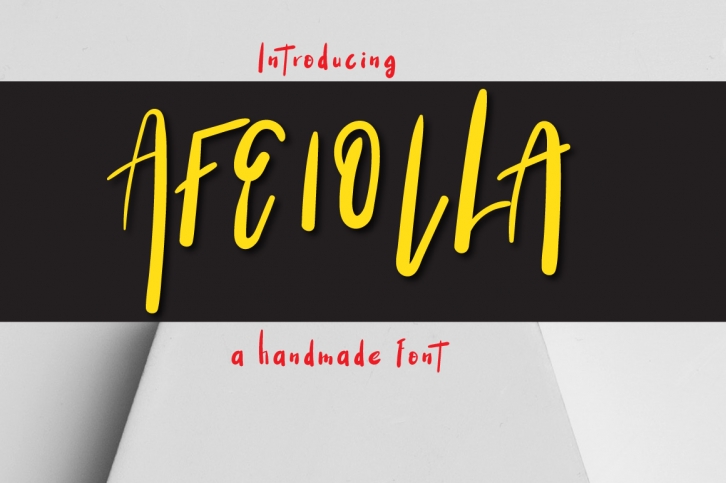
Afeiolla Typeface is a trendy and unique font with an authentic style. It was designed by Design 2 Last and it's a great choice for creative people who need such a font. It was released on September 4, 2018 and the file size is 10.64 MB. Afeiolla Typeface will add an organic vibe to any design idea!